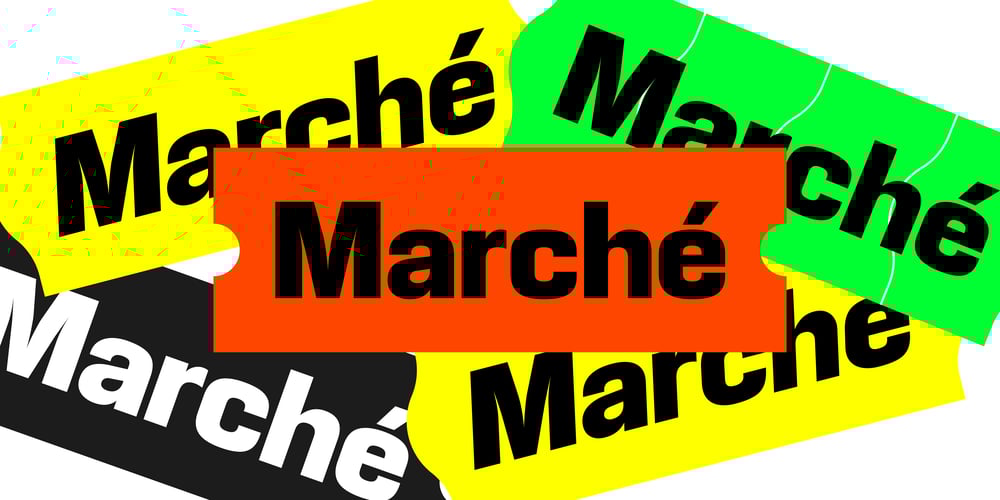
Marche Font Family was designed by Colophon Foundry and published by Colophon Foundry. Marche contains 3 styles and family package options. Initially drawn as a bespoke typeface for a singular issue of photography magazine, HOTSHOE, Marché seeks inspiration and influence in European signage, from small village market shops to the sprawling hypermarkets of Calais, France. With a square-like and impactful DNA, it borders on a re-interpretation of Eurostile, but with the addition of both Italic and Backslant variants for emphasis or stylised usage.Marché is available in one weight — Super — with corresponding forward and backward slanting style. It is available to license in both Standard (‘STD’) and Professional (‘PRO’) versions, the latter containing a range of additional OpenType features.